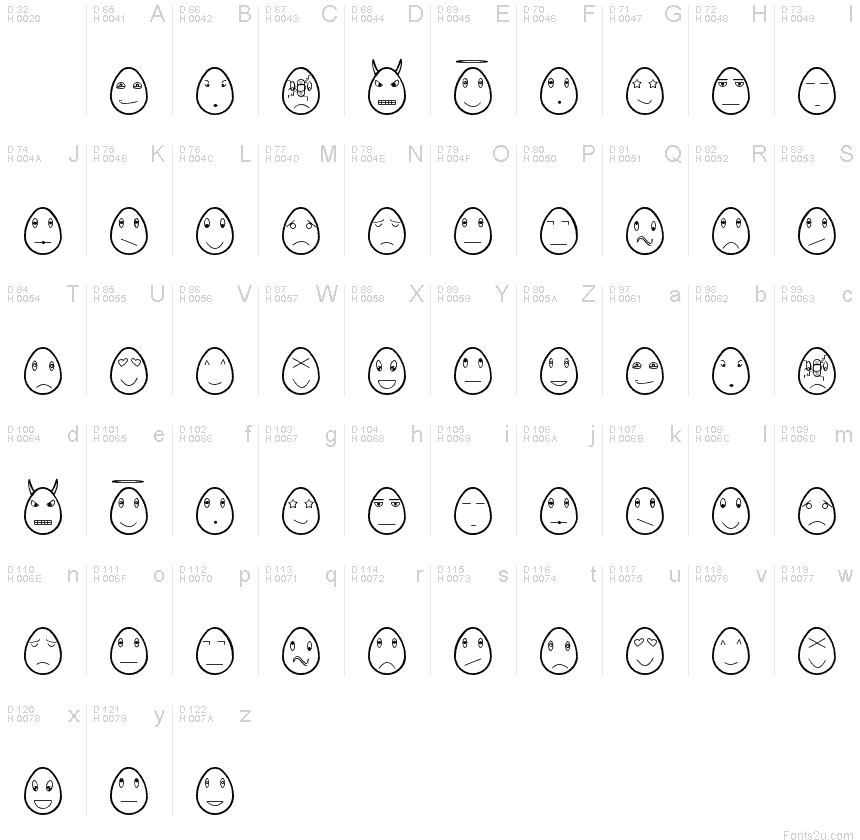
Eggfaces TFB by Kaiserzharkhan is a free cartoon dingbat font built around a cast of egg-shaped faces. Each symbol keeps the same broad oval outline, then changes the eyes, brows, mouths, and occasional details such as a halo to cover reactions ranging from sleepy and worried to delighted or surprised.
Those simple facial expressions can become recurring characters beside colorful illustrations in children's activity sheets, party invitations, and playful social graphics, with each mood offering an instant visual cue. It is especially convincing as an emotion set for comics and games.